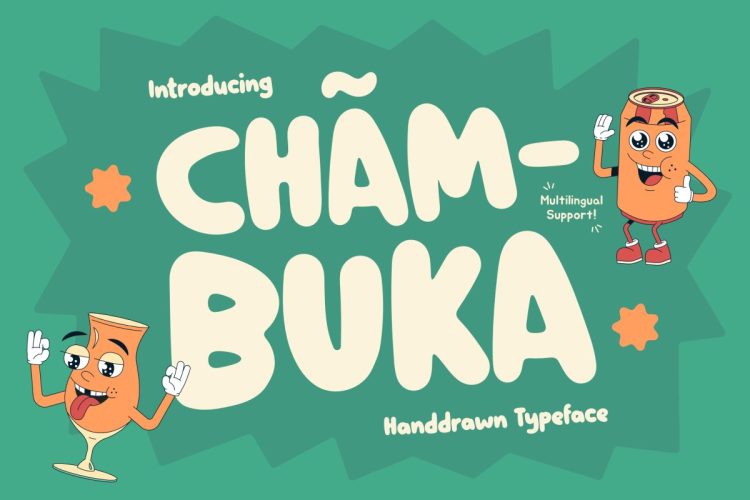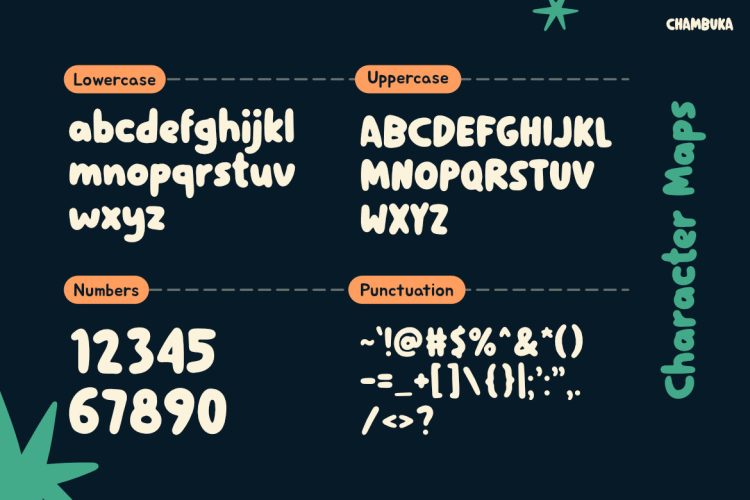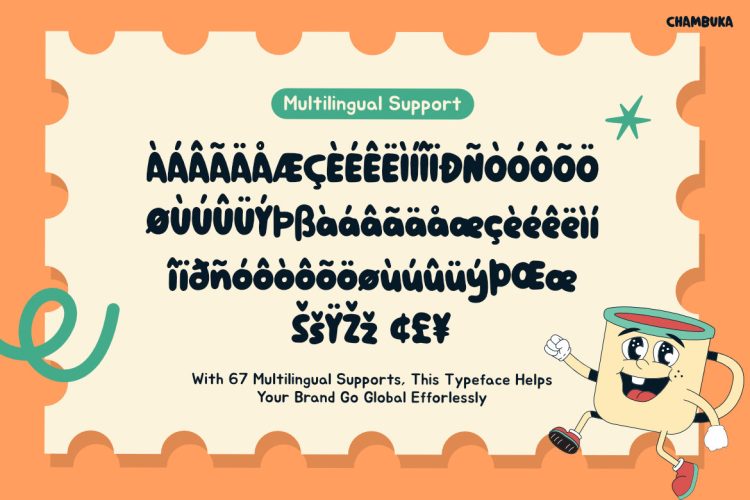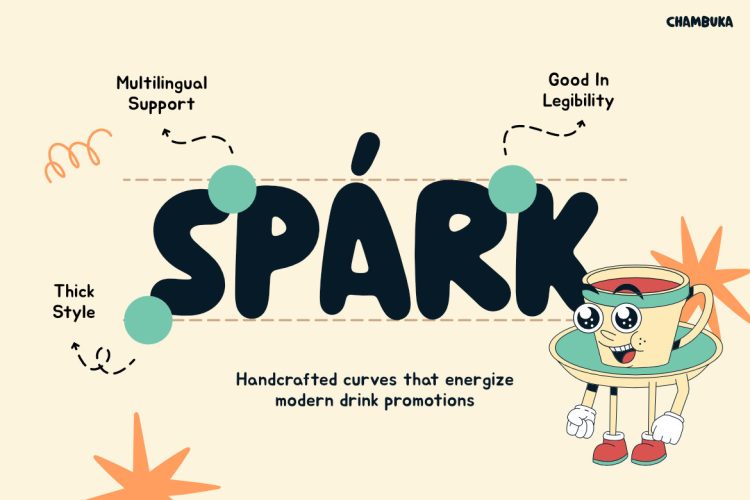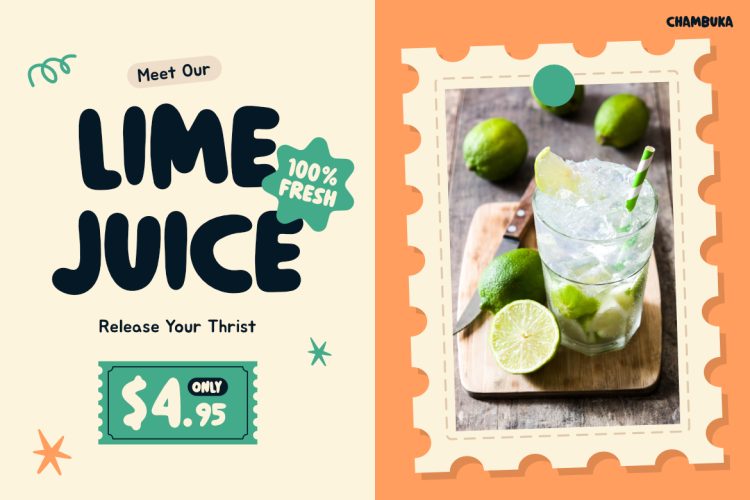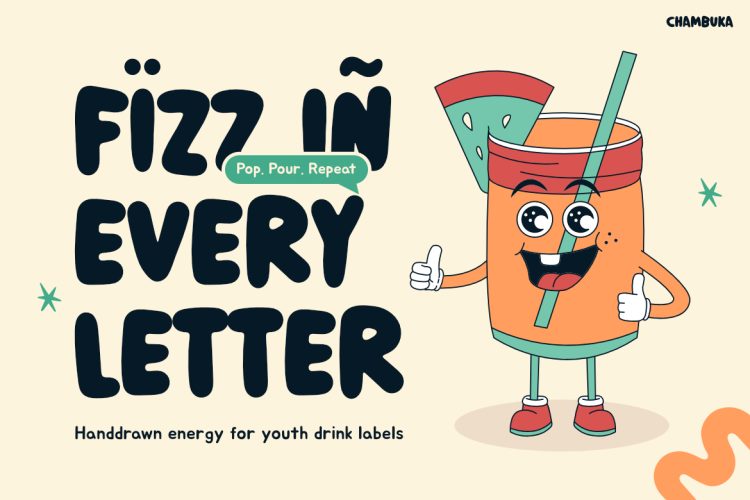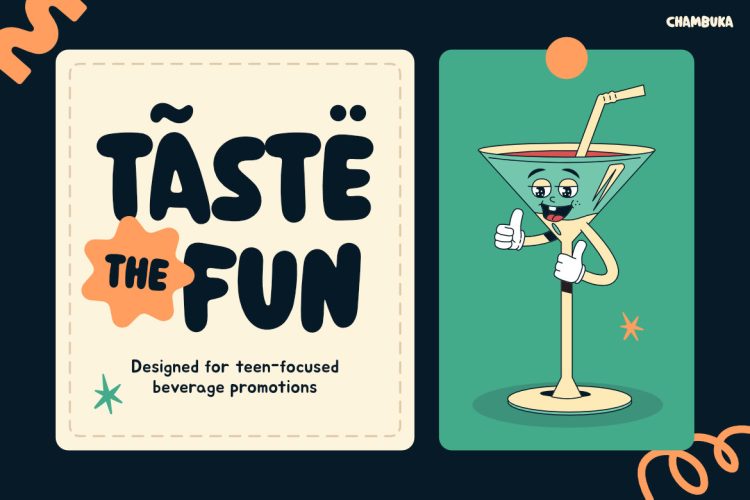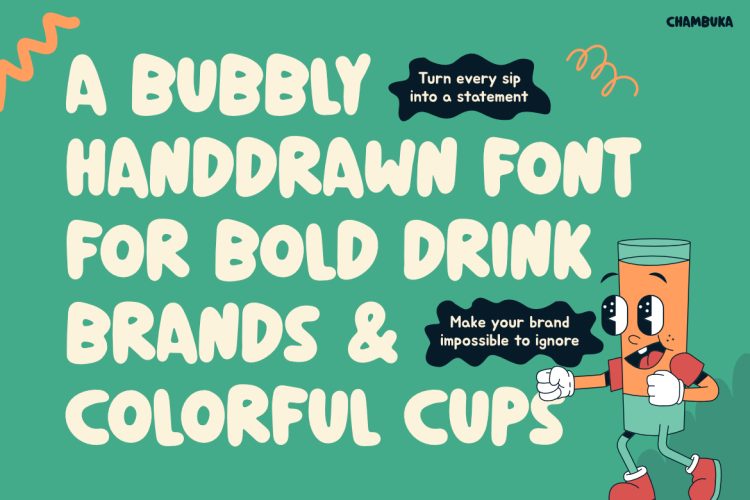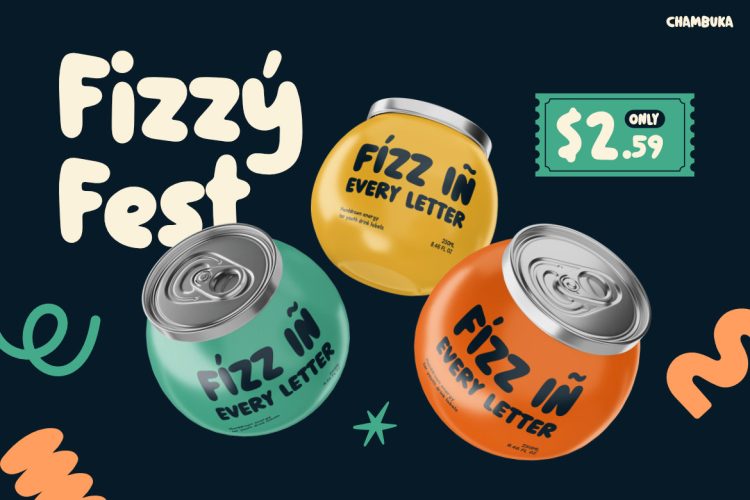
Chambuka โ Playful Handdrawn Font Full of Fun Energy
Instagram Font Chambuka brings a lively, bubbly personality with its handdrawn style and cheerful letterforms that instantly make designs feel fun and approachable. Its soft curves, uneven strokes, and quirky shapes create an authentic handmade look that stands out from typical clean fonts. Moreover, this font delivers a warm and friendly vibe, making it visually engaging while still easy to read. The playful aesthetic adds character and emotion, so every word feels expressive and full of life. In addition, Chambuka blends creativity with functionality, making it perfect for eye-catching visuals across both print and digital platforms. With support for 67 languages, it also ensures your message connects globally without losing its unique charm.
Chambuka is a playful handdrawn display font designed to add joy and personality to your work. Its bold, rounded shapes create a strong visual presence while keeping a soft and friendly tone. Furthermore, the irregular strokes give it a natural and organic feel, which makes your design look more human and engaging. The font works beautifully for headlines, branding, and creative layouts. As a result, it helps your content feel more dynamic and memorable. Whether you use it in bright, colorful compositions or simple layouts, Chambuka always brings a fun and energetic touch.
Chambuka is perfect for designers, illustrators, and brands that want to express creativity and happiness. It works great for kidsโ products, beverage branding, packaging, posters, social media content, and merchandise. In addition, it fits food and drink visuals, especially for juice, soda, and snack brands. Not only does it attract attention, but it also builds a friendly and inviting brand identity that people love.